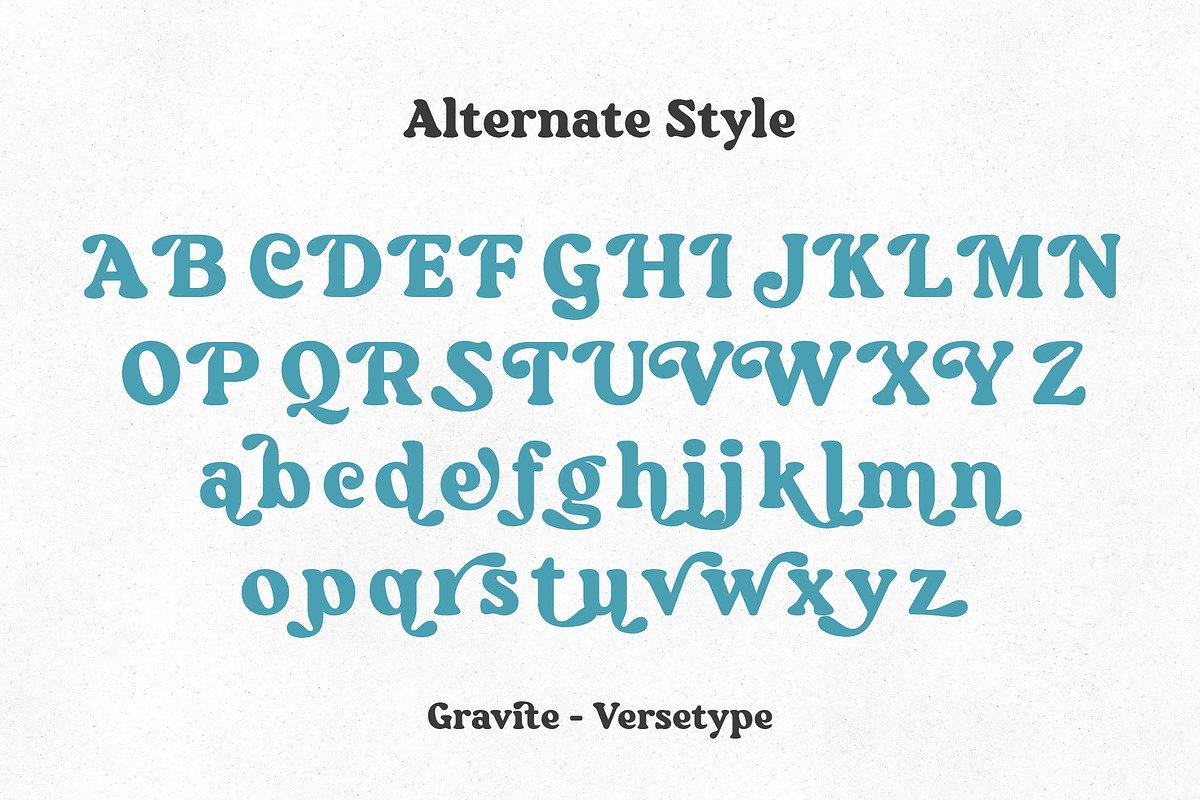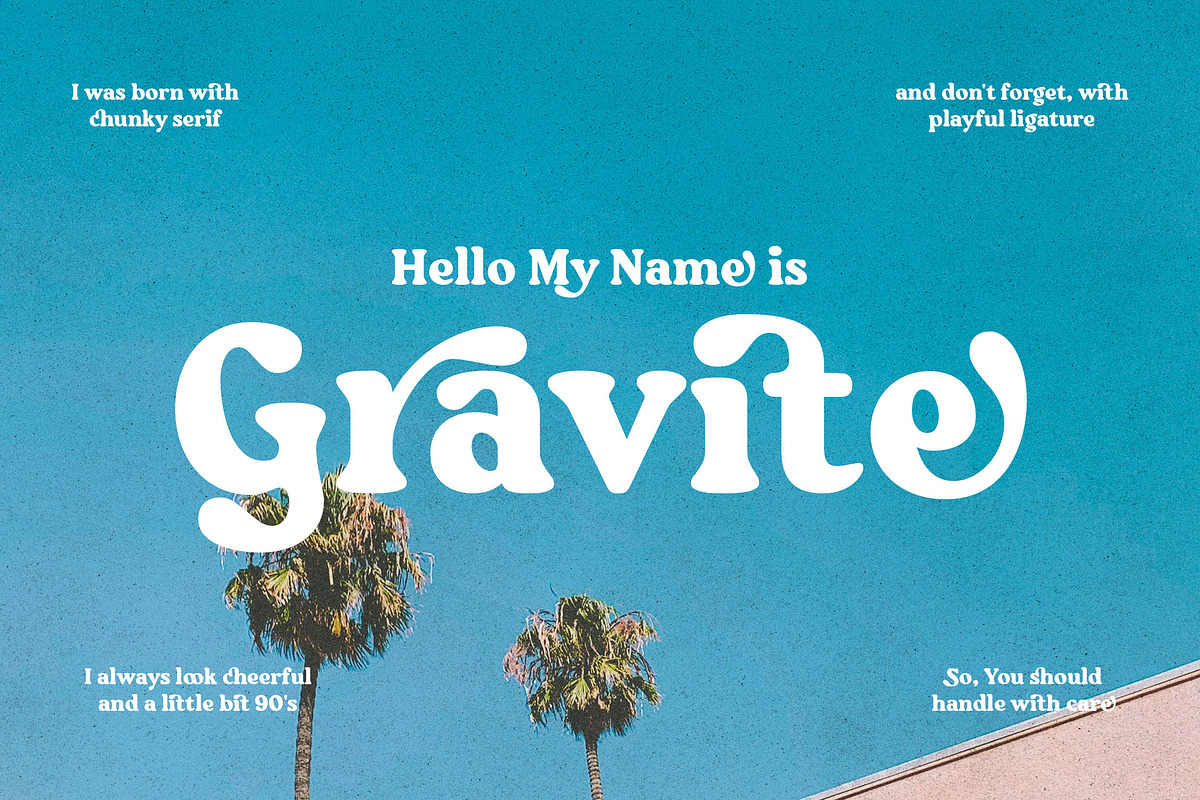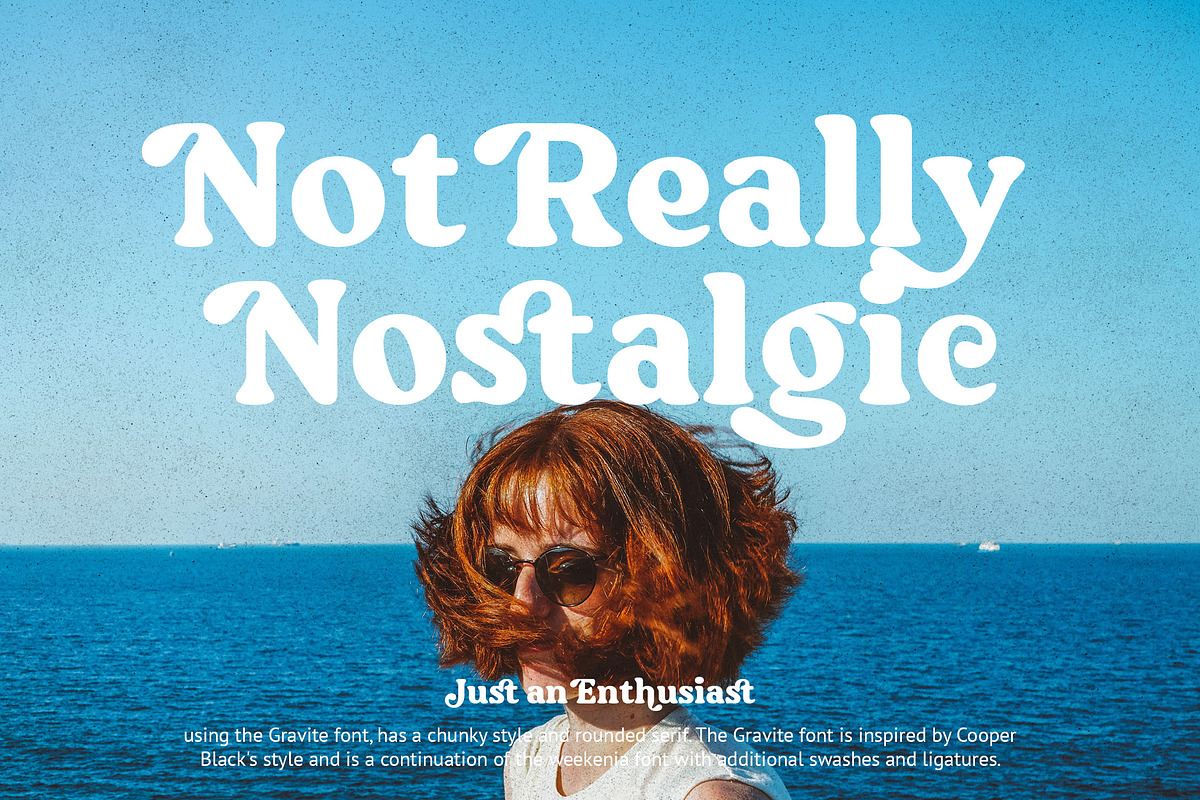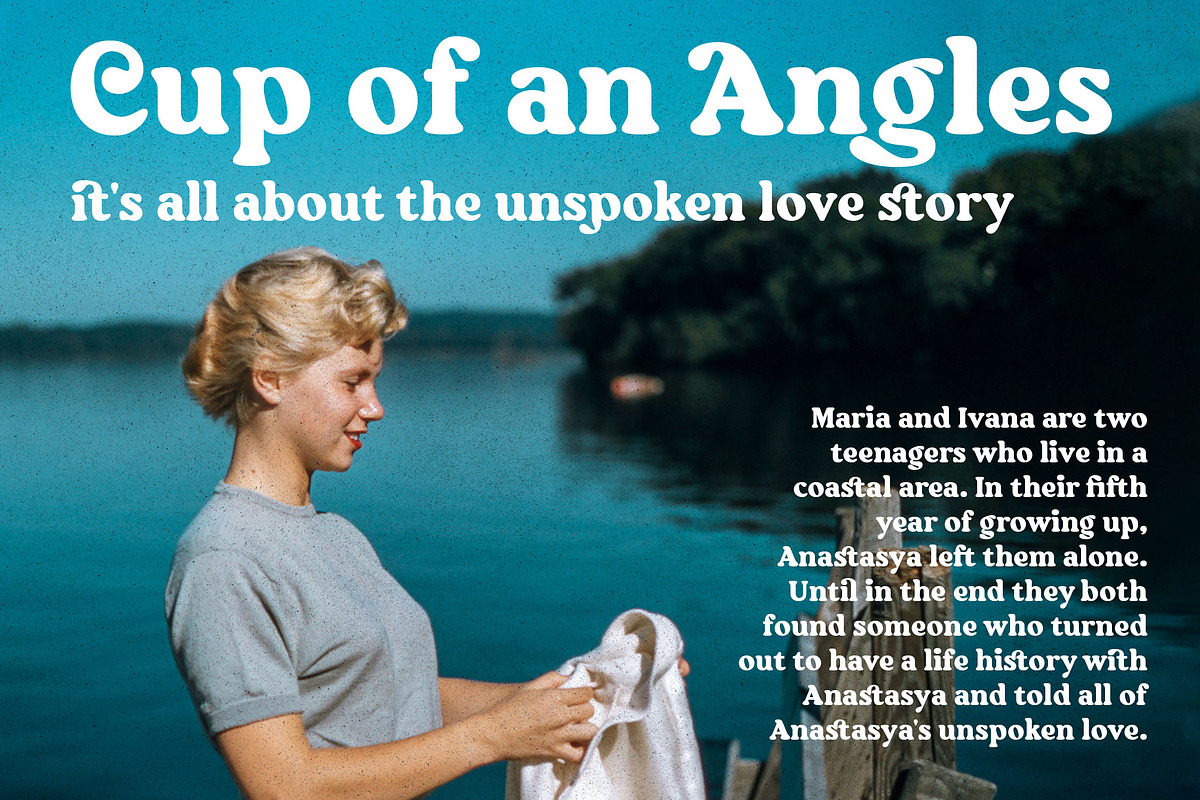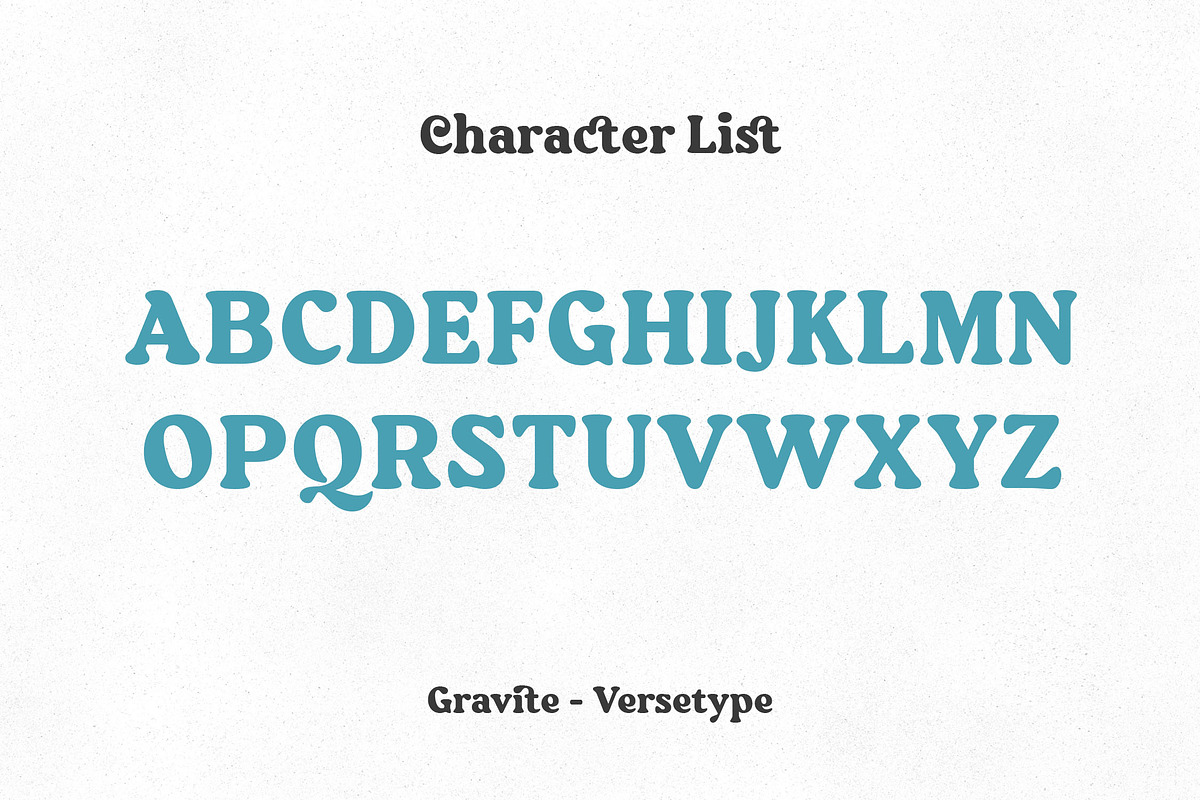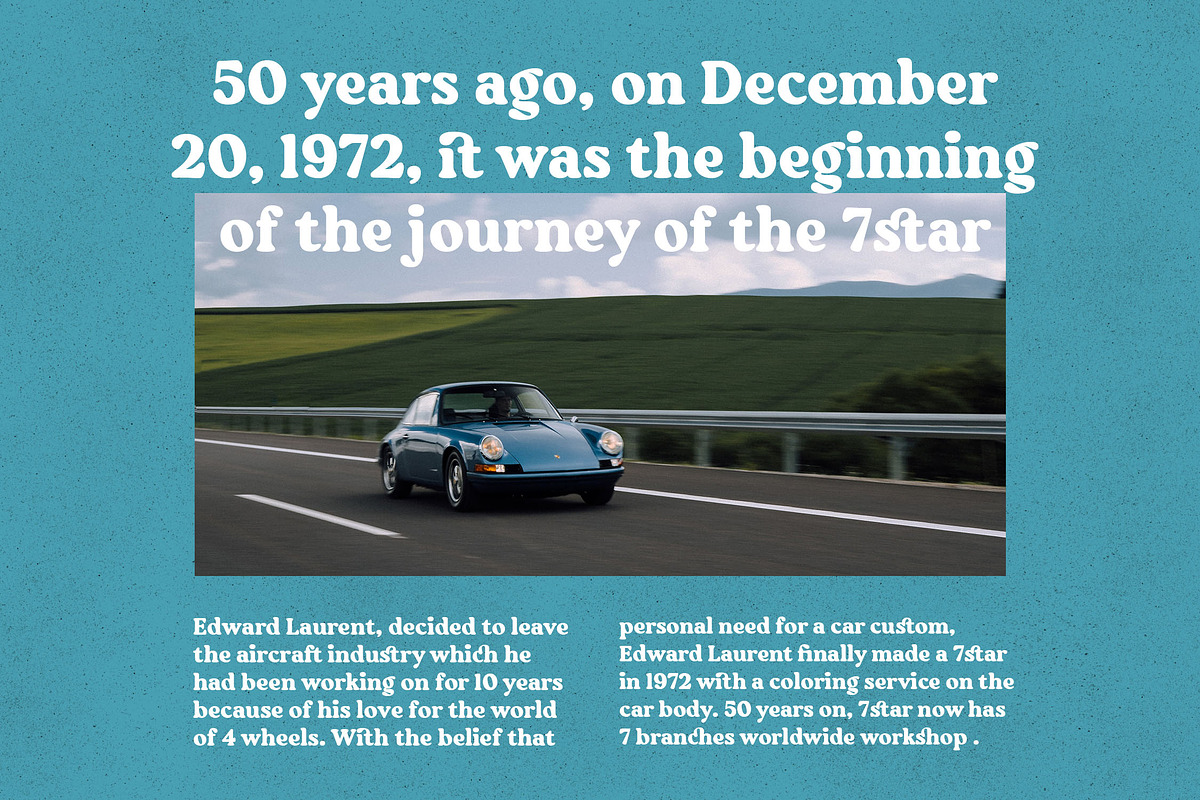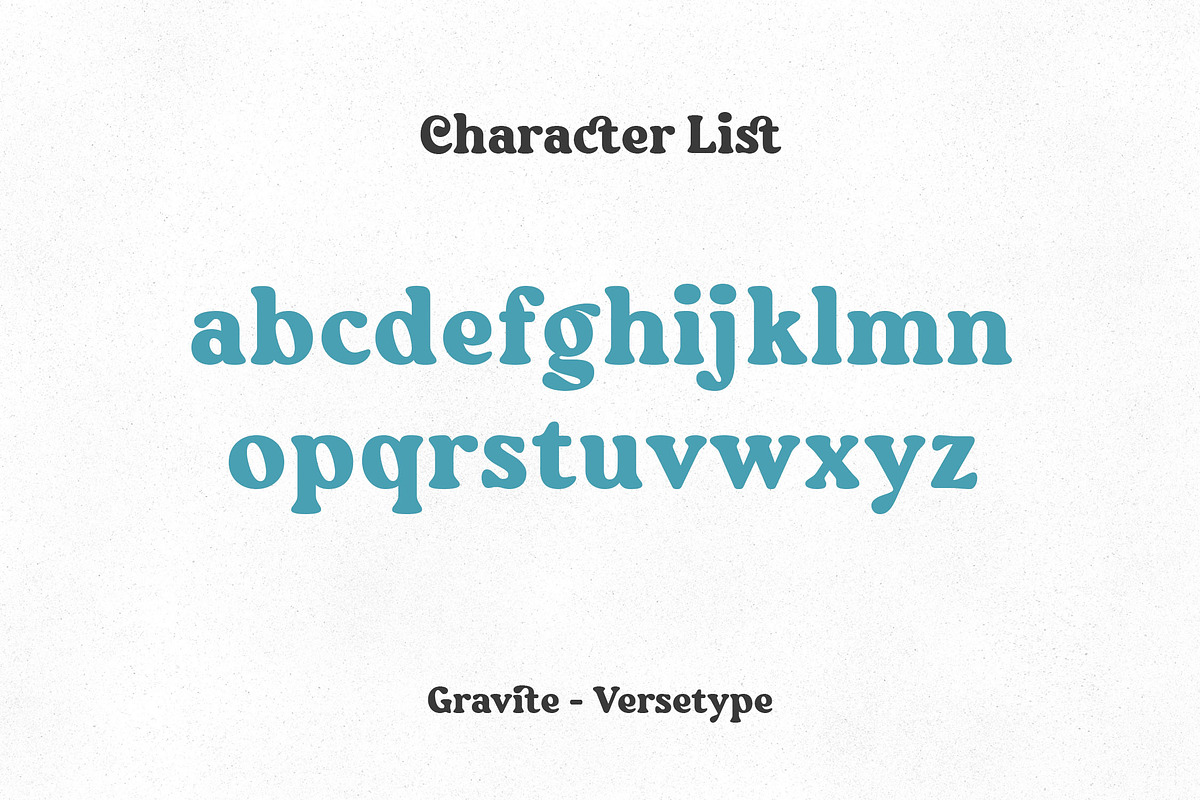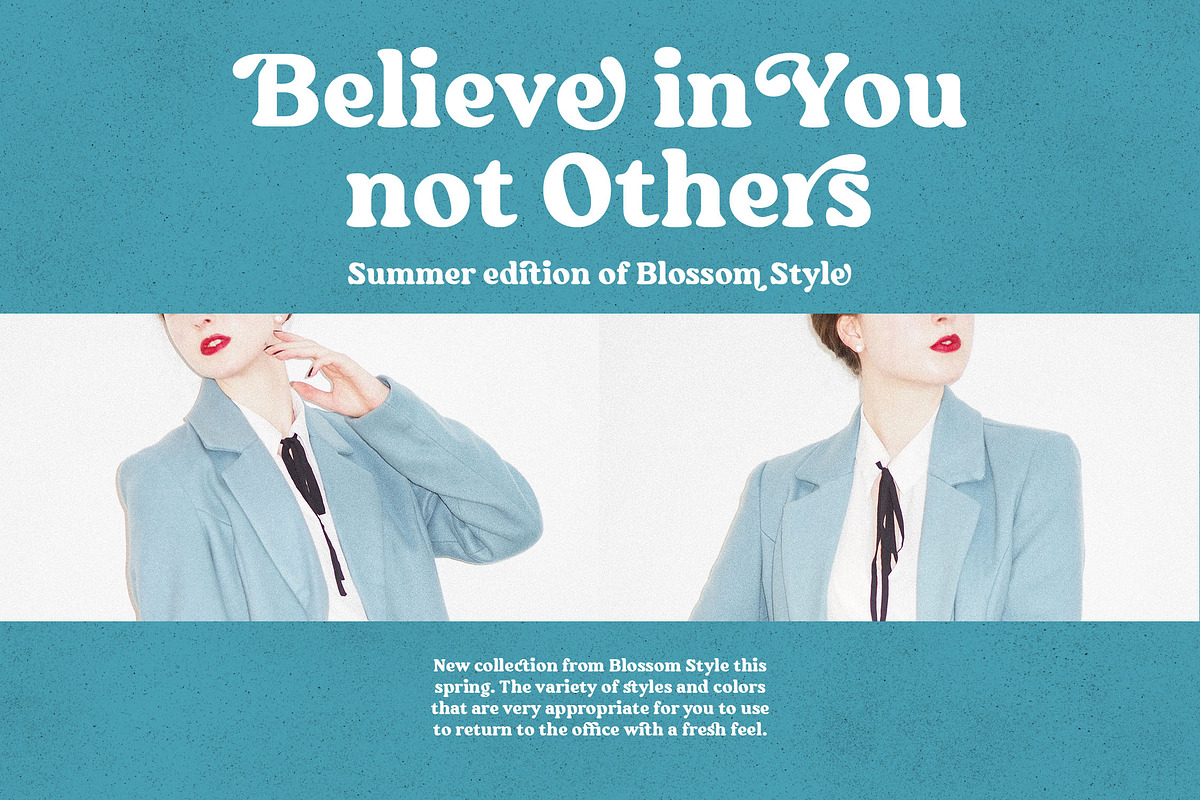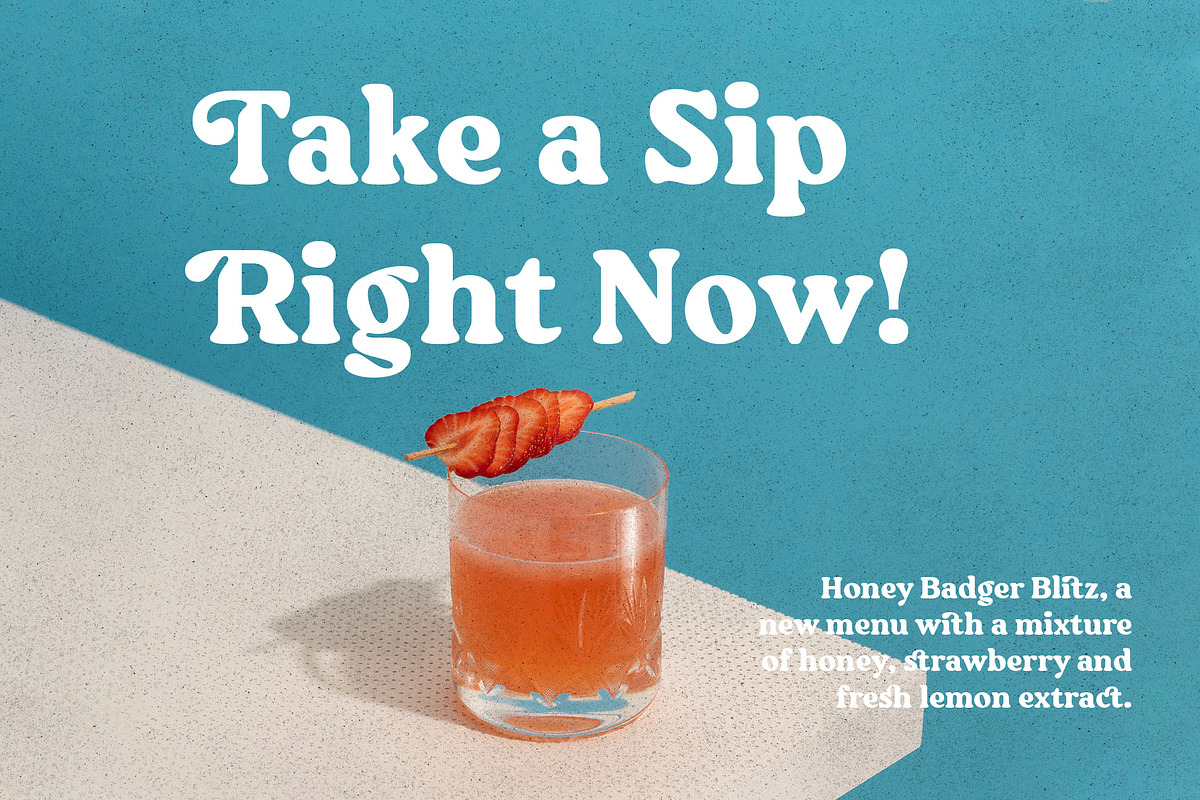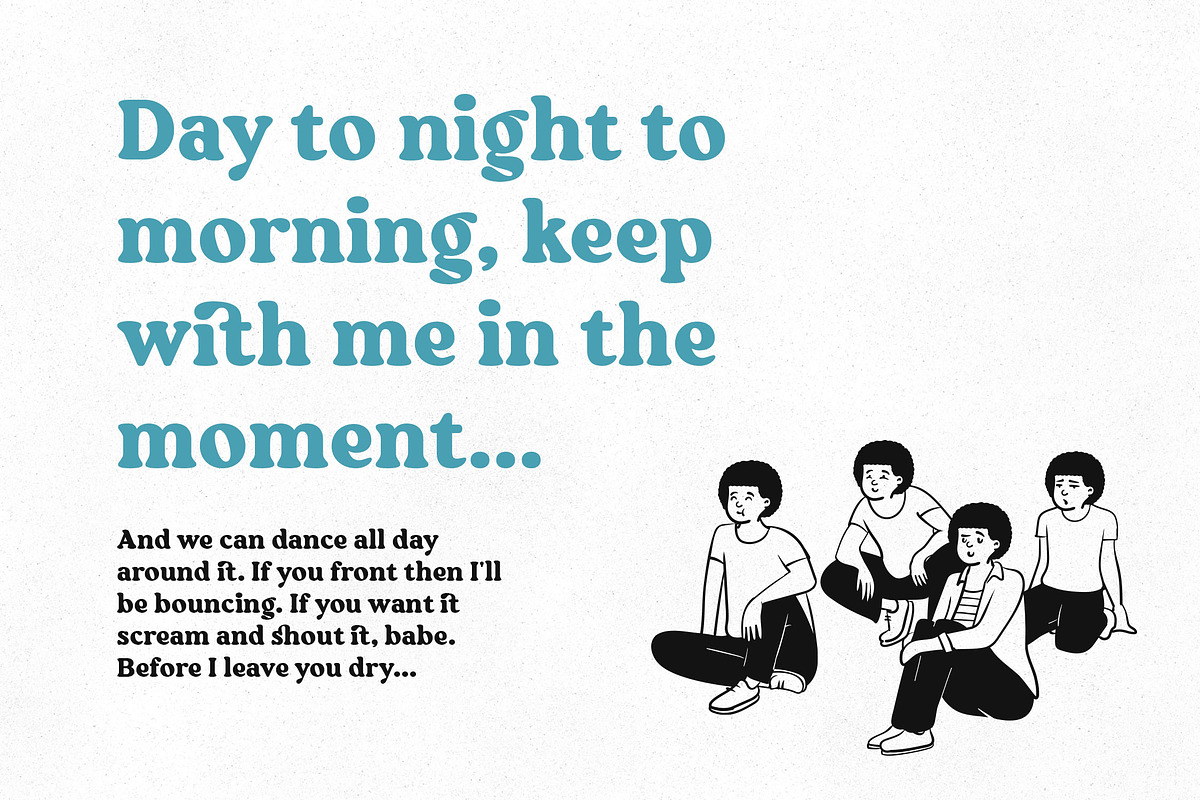
Gravite
Maybe you are already familiar with this style, a style that is often found in the marketplace. However, Gravite has a strong character with Bold weight, playful ligature, and alternate with additional swash which is very suitable for design projects with a 90s mood.
Gravite's strong character makes it suitable for use as magazine covers, editorial designs, logo concepts, advertising, packaging, and some 90s style layouts.